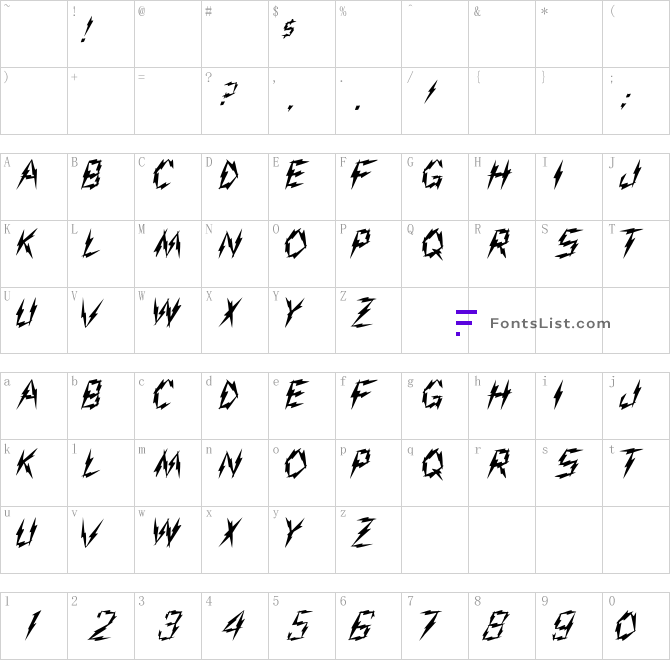
- Font Name:Aarco-
Aarco-.ttf is a very beautiful artistic font, Aarco-.ttf is widely used in the design and printing of various books and pictures,Aarco-.ttf has a strong visual impact,Aarco-.ttf is a commonly used font in newspapers, magazines and books, and is used in posters, e-commerce Poster design, store design, logo design, font design and other fields.Aarco-.